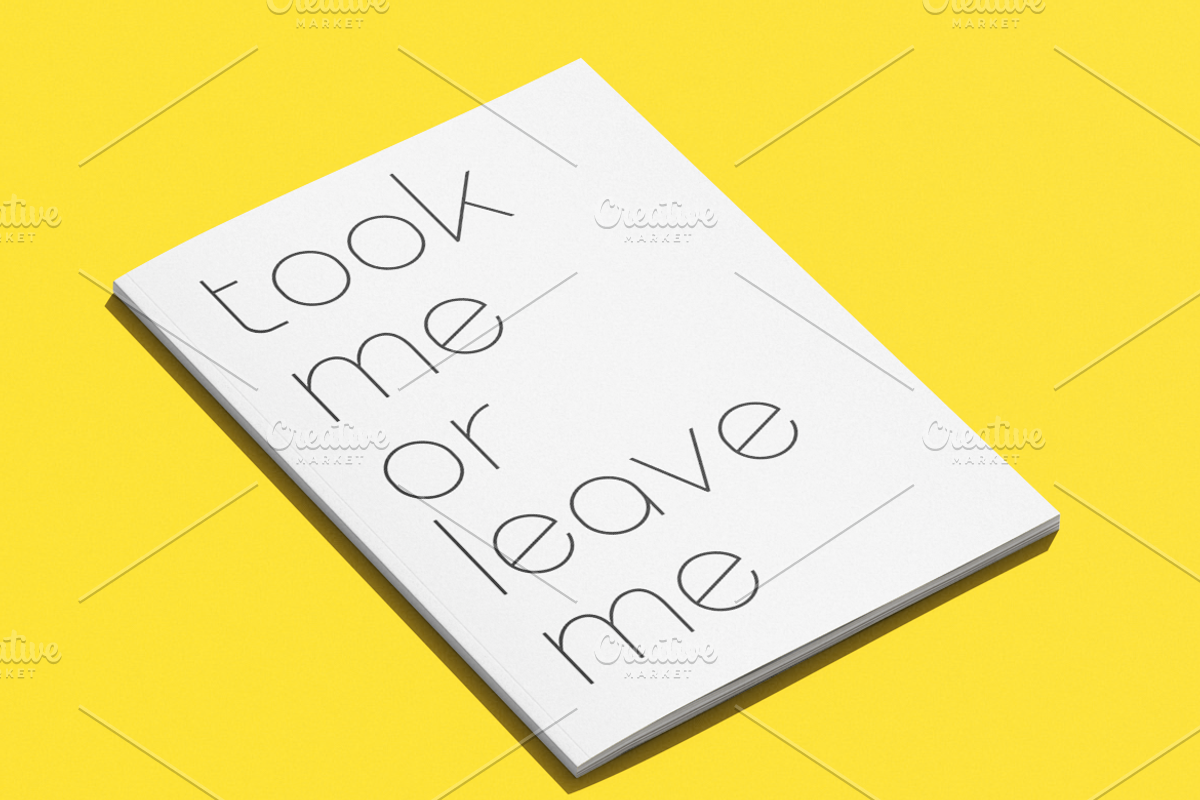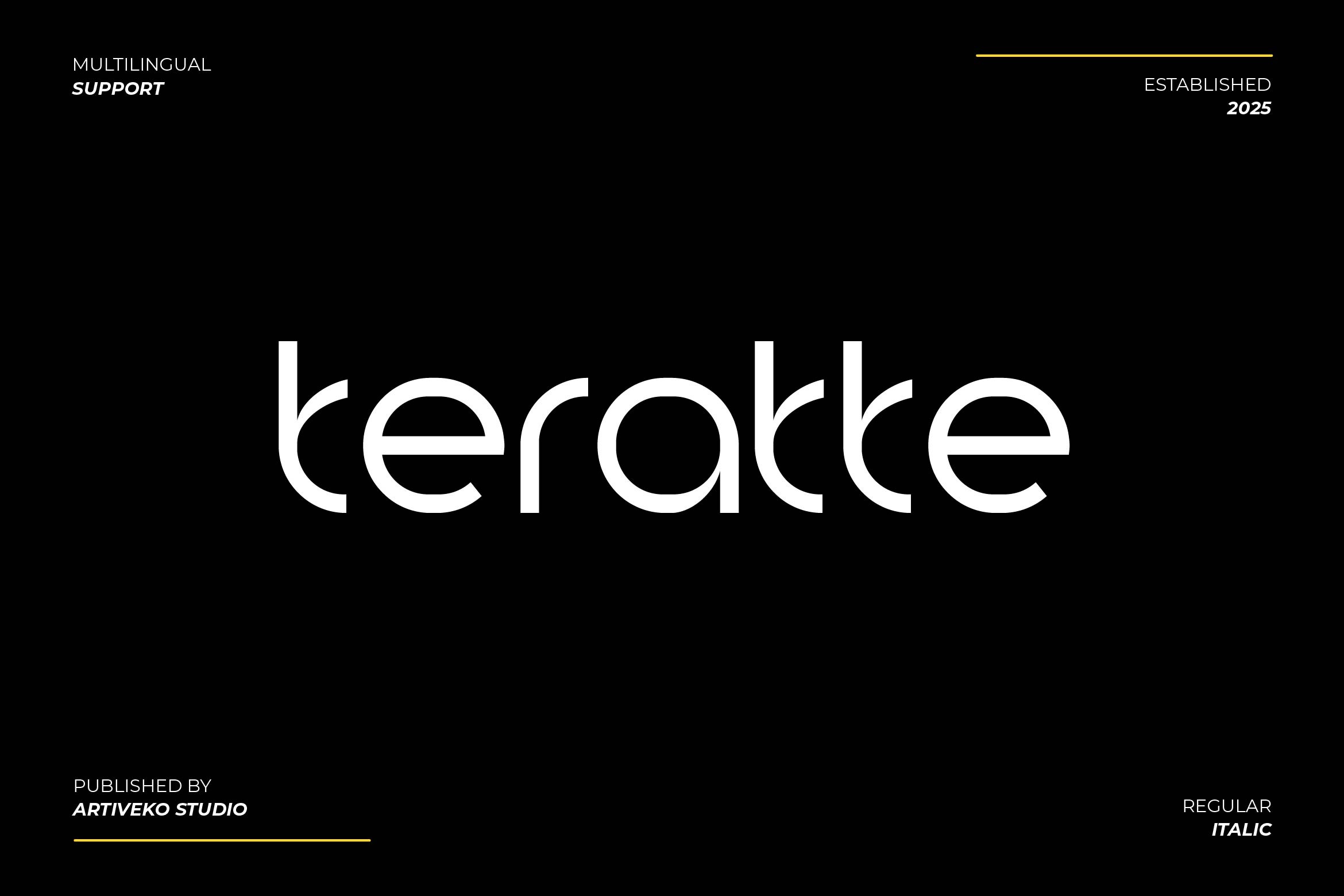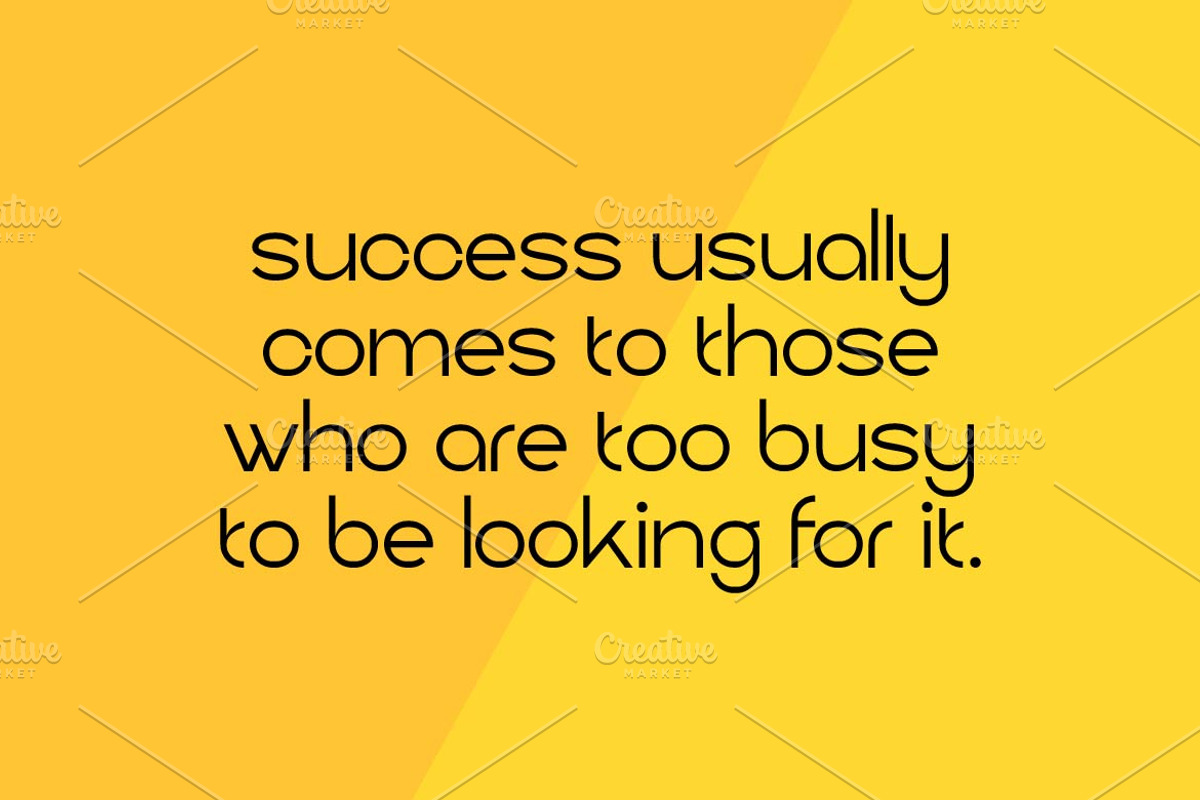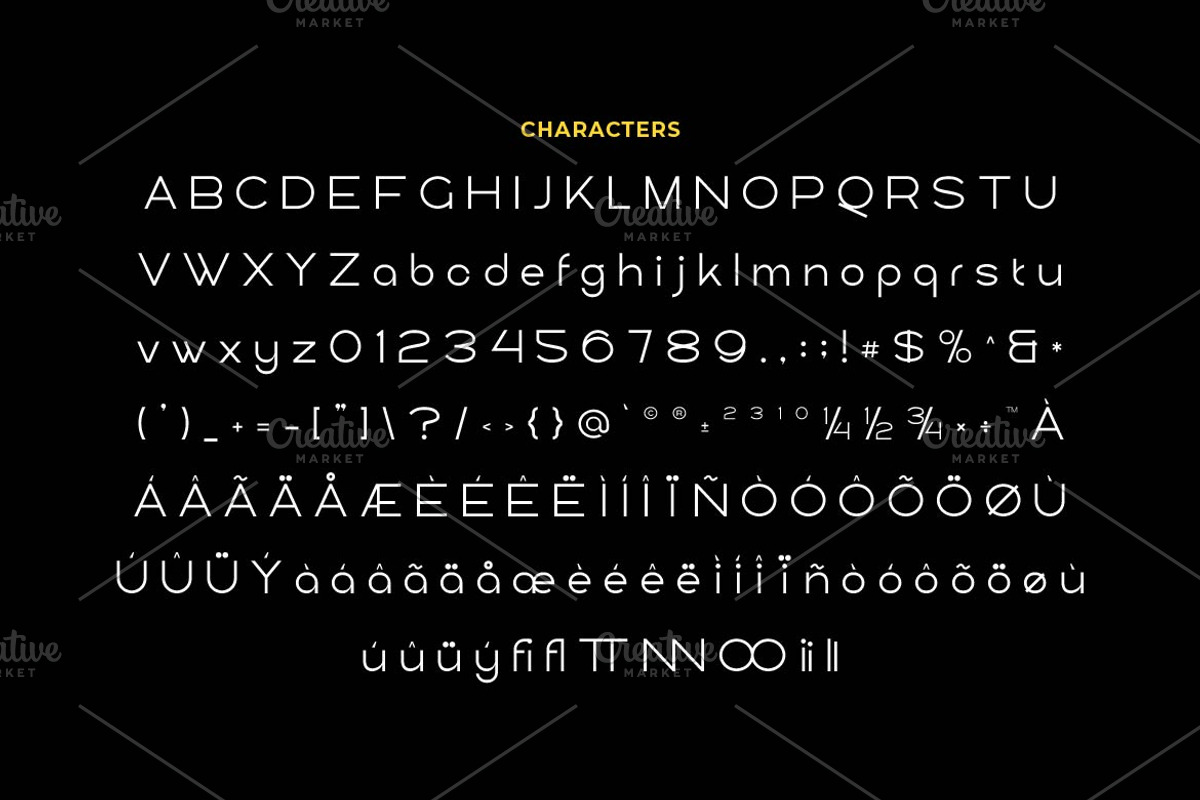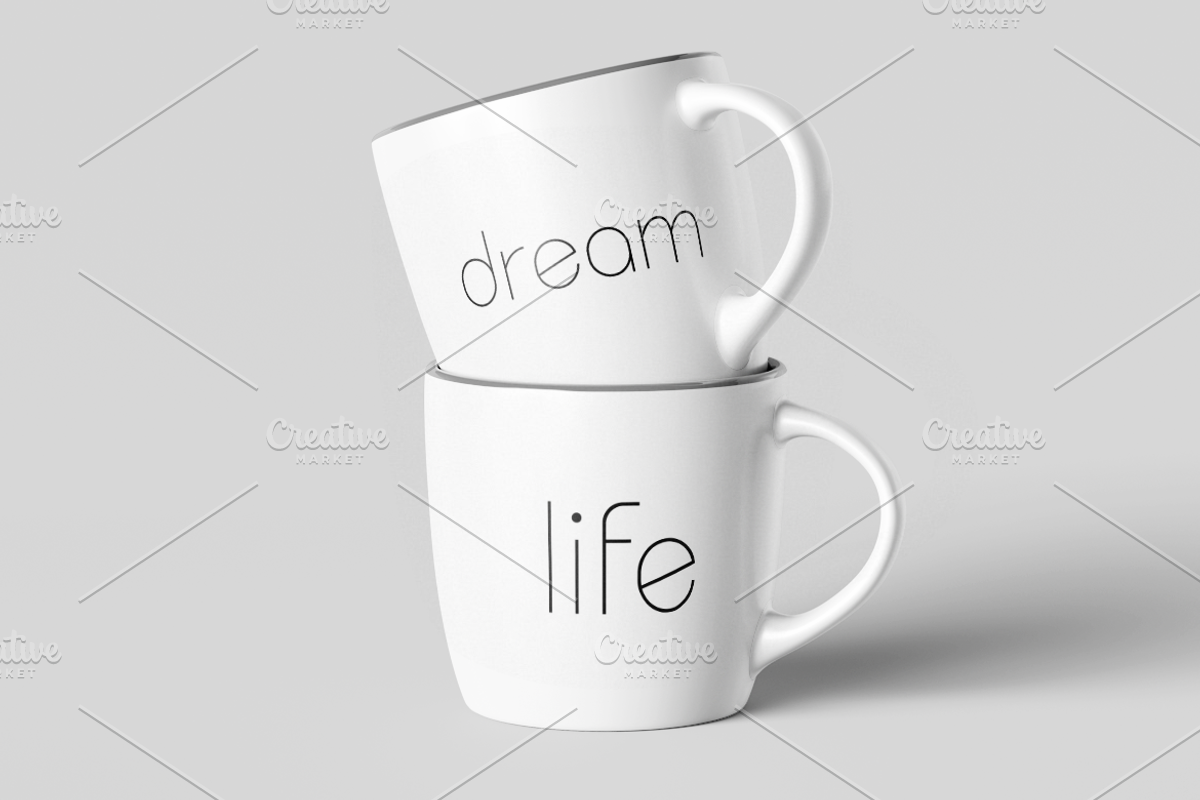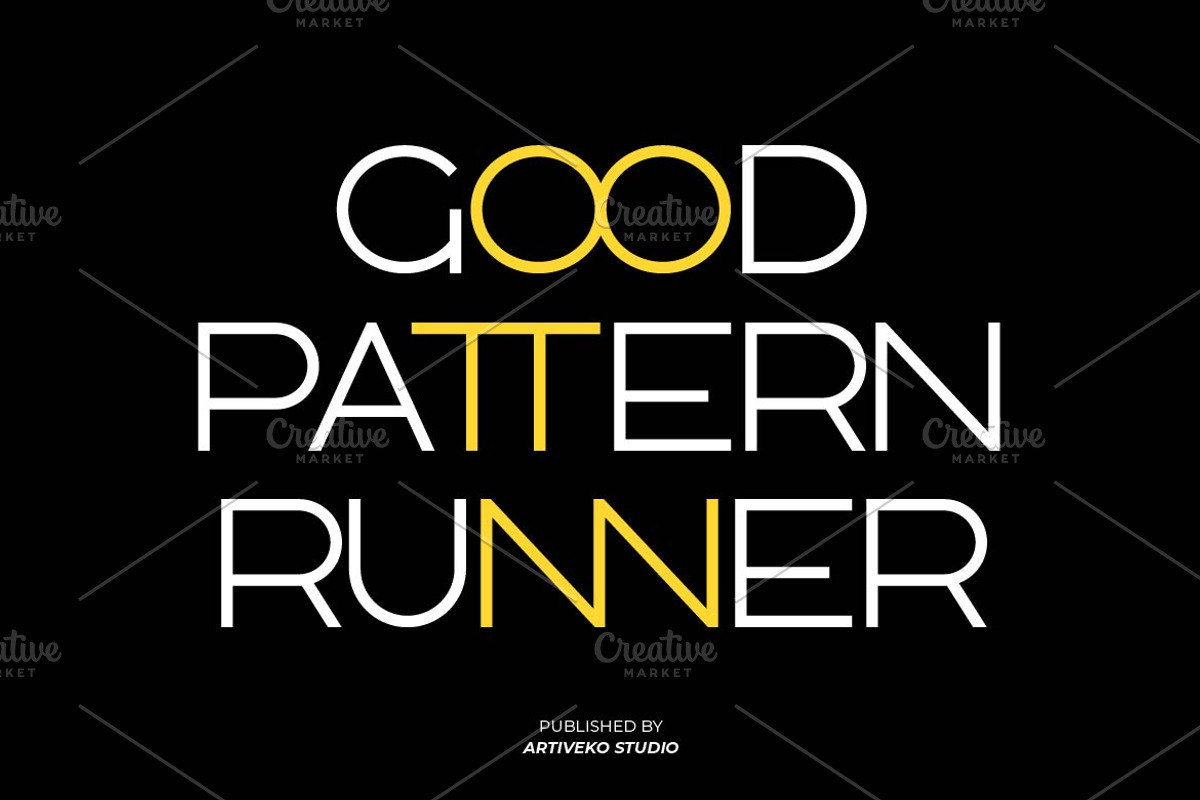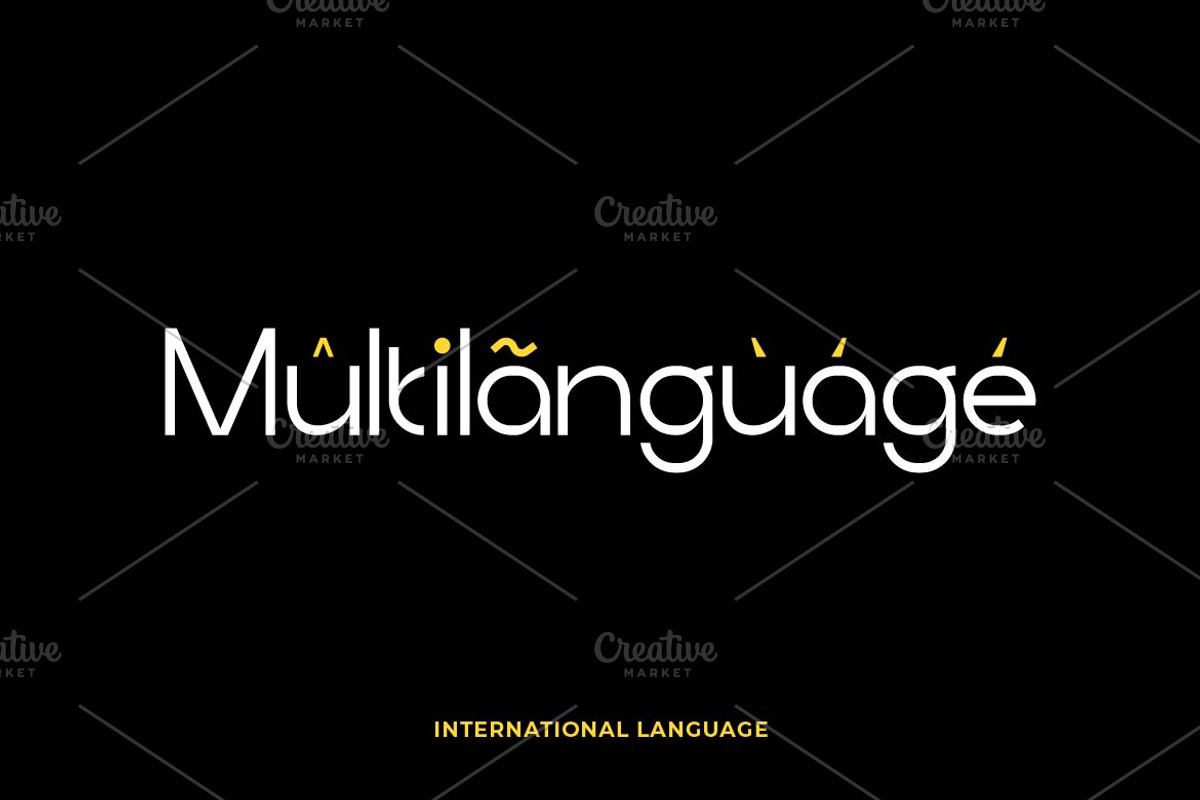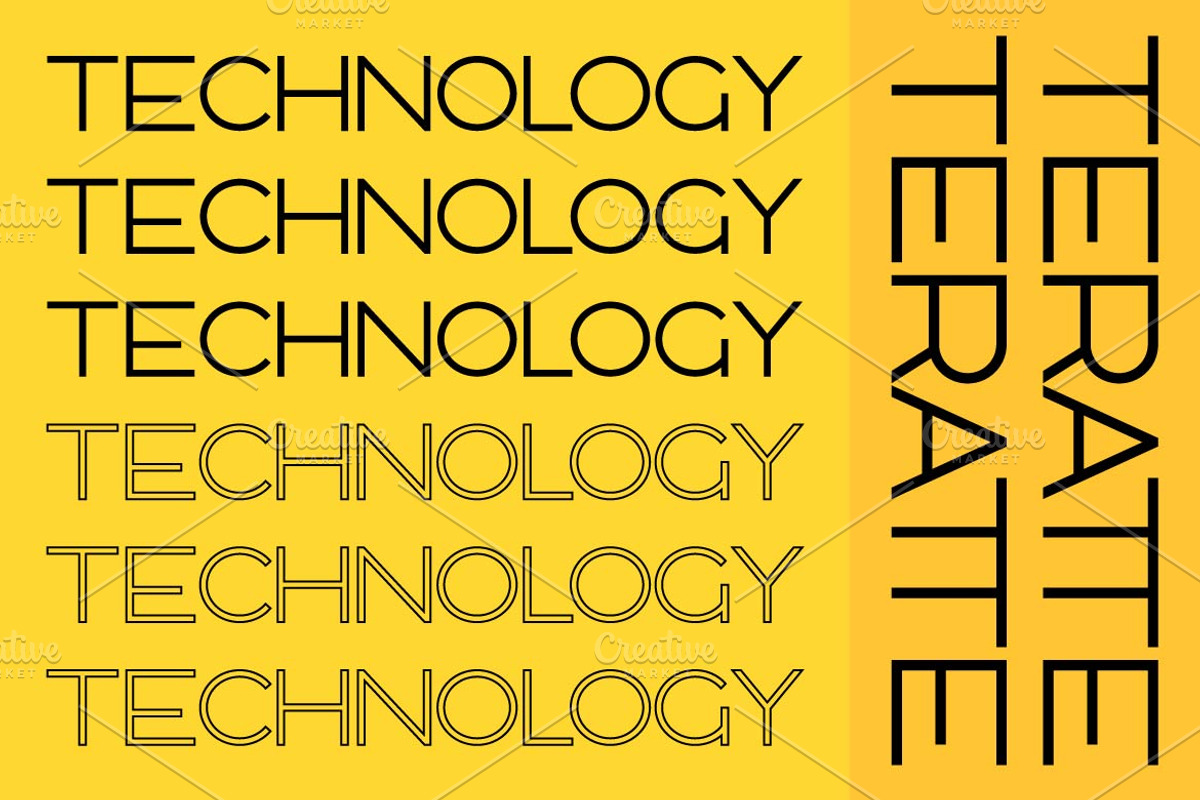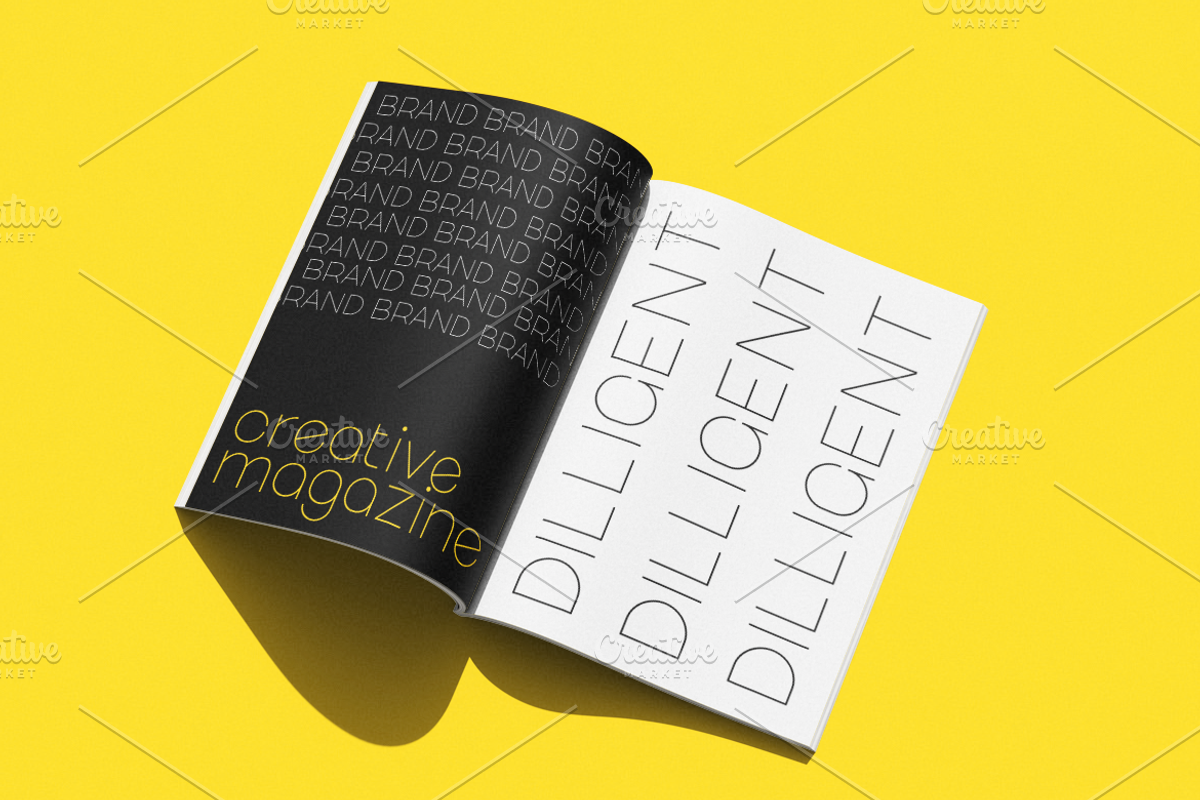
Teratte Minimalist Logo Font
Teratte is a creative minimalist sans serif font designed with simplicity and uniqueness in mind. Its sleek letterforms and subtle quirks create a modern yet artistic vibe—perfect for branding, logos, packaging, and digital content. Featuring multilingual support, ligatures, and alternates, Teratte brings a refined character to minimalist design with a touch of creative flair.